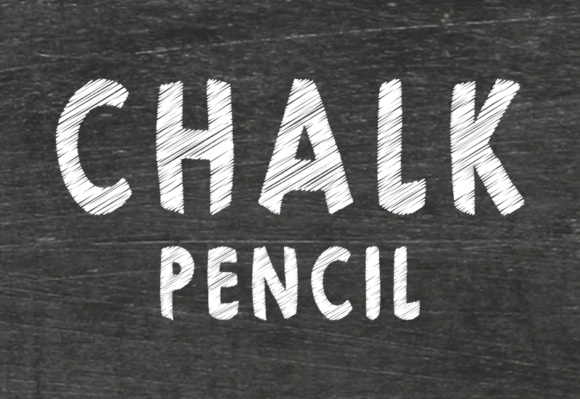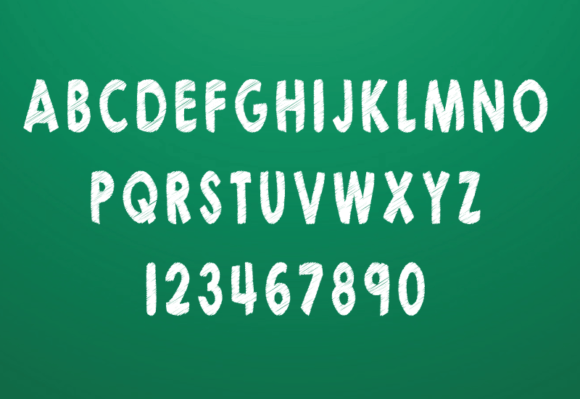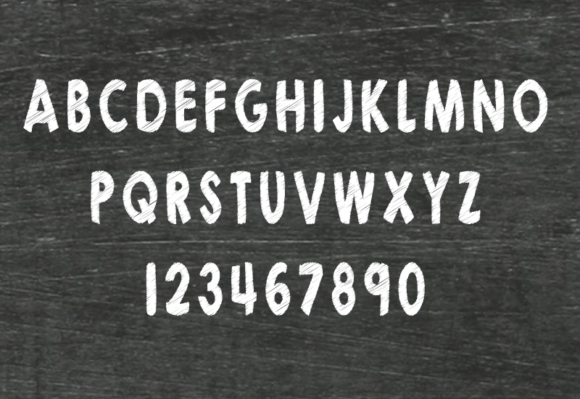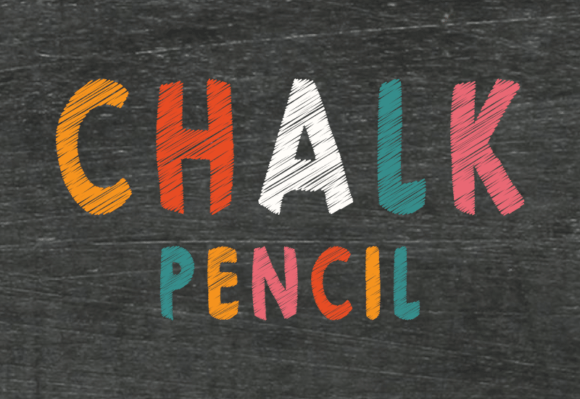
Introducing Chalk Pencil Font: Add a Touch of Whimsy to Your Designs
Are you looking for a font that can instantly bring a happy and fun mood to your designs? Look no further than Chalk Pencil Font! This delightful font is perfect for kids, back-to-school project ideas, book covers, and many more. In this article, we’ll dive into the world of Chalk Pencil Font and explore its features, uses, and benefits.
What is Chalk Pencil Font?
Chalk Pencil Font is a unique and playful font that mimics the look of chalk pencil writing. Its irregular lines, uneven spacing, and hand-drawn feel make it an ideal choice for designs that require a personal and whimsical touch. This font is sure to capture the attention of your audience and leave a lasting impression.
Features of Chalk Pencil Font
- Hand-drawn look: Chalk Pencil Font has a distinctly hand-drawn look that gives it a personal and relatable feel.
- Irregular lines and spacing: The font’s irregular lines and uneven spacing add to its whimsical and playful nature.
- Perfect for kids and back-to-school projects: The font’s fun and lively feel makes it an excellent choice for designs targeting kids and back-to-school projects.
- Multipurpose: Chalk Pencil Font can be used for a wide range of designs, including book covers, posters, flyers, and more.
Uses of Chalk Pencil Font
Chalk Pencil Font is an incredibly versatile font that can be used for various design projects. Here are some ideas to get you started:
- Kids’ party invitations: Create fun and playful invitations for kids’ parties with Chalk Pencil Font.
- Back-to-school projects: Use the font to create eye-catching posters, flyers, and worksheets for back-to-school projects.
- Book covers: Add a touch of whimsy to your book covers with Chalk Pencil Font, perfect for children’s books, educational resources, and more.
- Crafting and DIY projects: Use the font to create labels, signs, and other materials for your crafting and DIY projects.
Benefits of Using Chalk Pencil Font
So, why choose Chalk Pencil Font for your designs? Here are some benefits of using this delightful font:
- Instantly adds a playful touch: Chalk Pencil Font can instantly add a playful and whimsical touch to your designs.
- Engages kids and adults alike: The font’s fun and lively feel can engage both kids and adults, making it perfect for a wide range of designs.
- Easy to read: Despite its irregular lines and spacing, Chalk Pencil Font is surprisingly easy to read, making it perfect for body text and headings.
- Versatile: The font can be used for a wide range of designs, from kids’ projects to educational resources and more.
Tips for Using Chalk Pencil Font
Here are some tips for using Chalk Pencil Font effectively in your designs:
- Pair with complementary fonts: Pair Chalk Pencil Font with complementary fonts to create visual interest and hierarchy.
- Use contrasting colors: Use contrasting colors to make your text stand out and add visual interest.
- Experiment with sizes and styles: Experiment with different sizes and styles to add emphasis and create visual hierarchy.
In conclusion, Chalk Pencil Font is a delightful and versatile font that can add a touch of whimsy to your designs. Its hand-drawn look, irregular lines, and playful feel make it perfect for kids, back-to-school projects, book covers, and many more. With its ease of use, readability, and multipurpose nature, Chalk Pencil Font is an excellent choice for designers and crafters looking to add a personal touch to their designs.